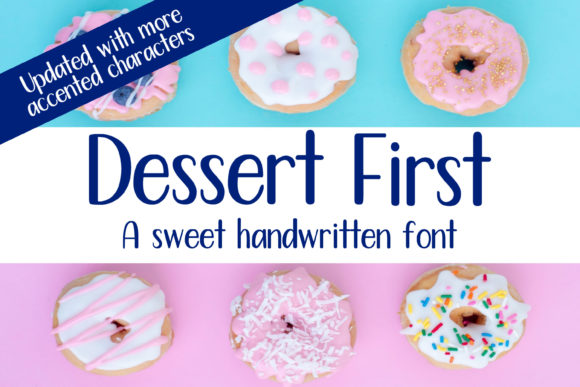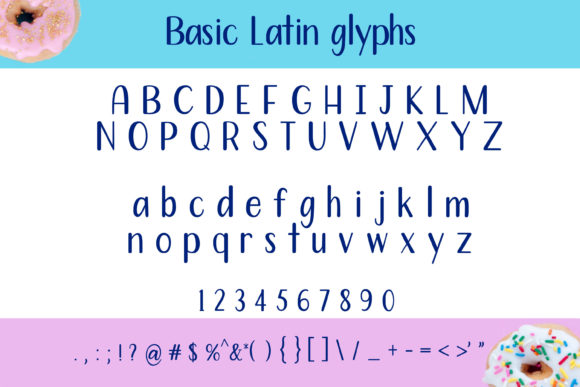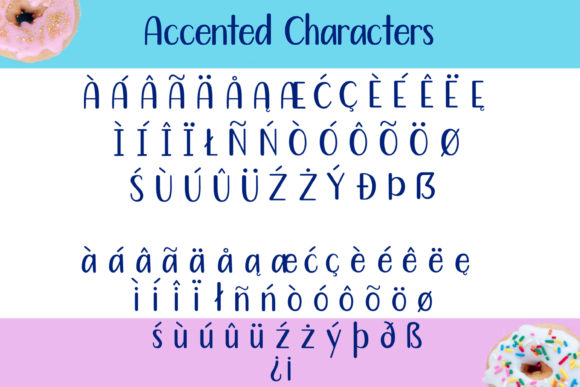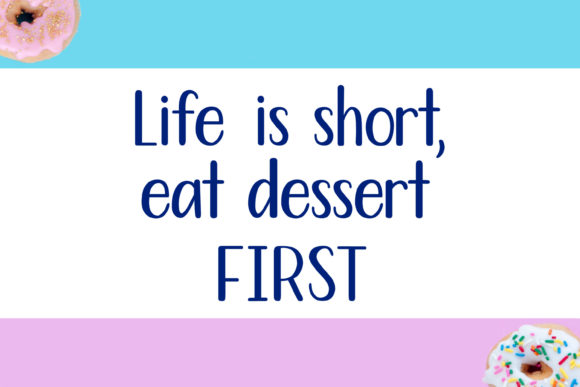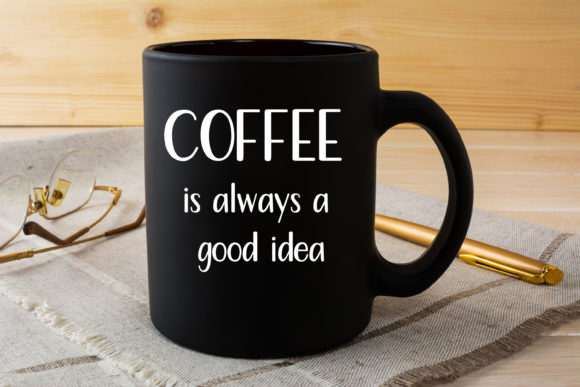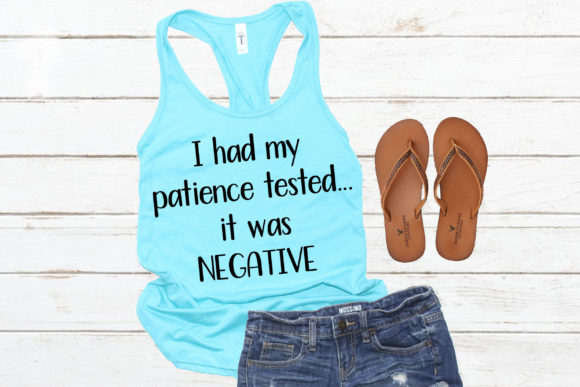
Dessert First Font
About Dessert First Font
Dessert First is a sweet and cool script font that prioritizes the sweet things in life. Get inspired by its unique vibe!